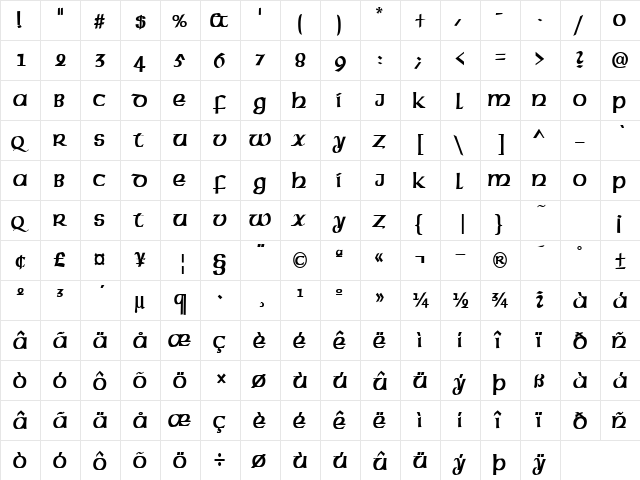
Celtic-Condensed Bold
Design Context for Celtic-Condensed Typeface
Celtic-Condensed is a composed and adaptable typeface that performs quietly and consistently across a wide range of design contexts. The heavy weight commands attention and anchors typographic hierarchies. The condensed width makes it efficient for tight spaces without sacrificing legibility.